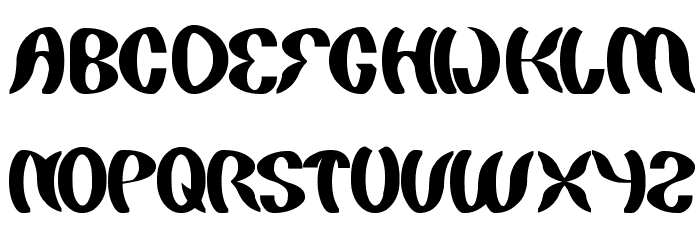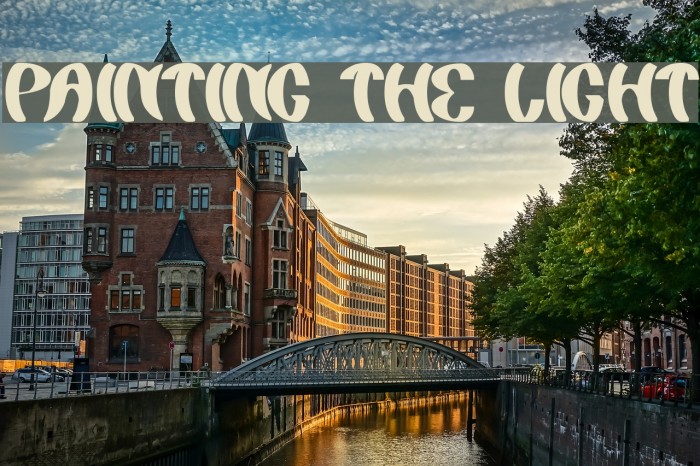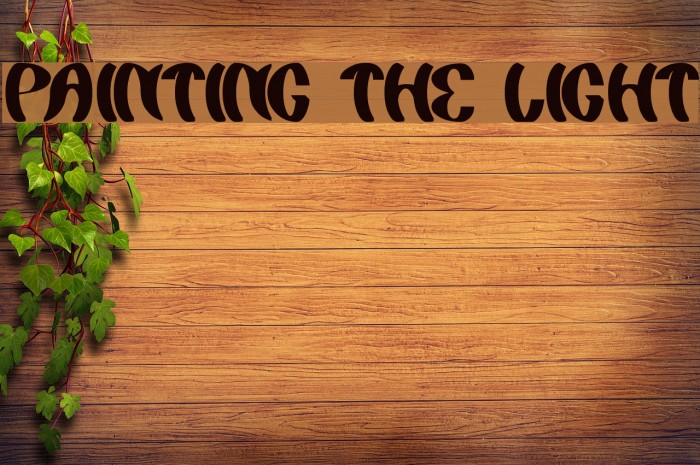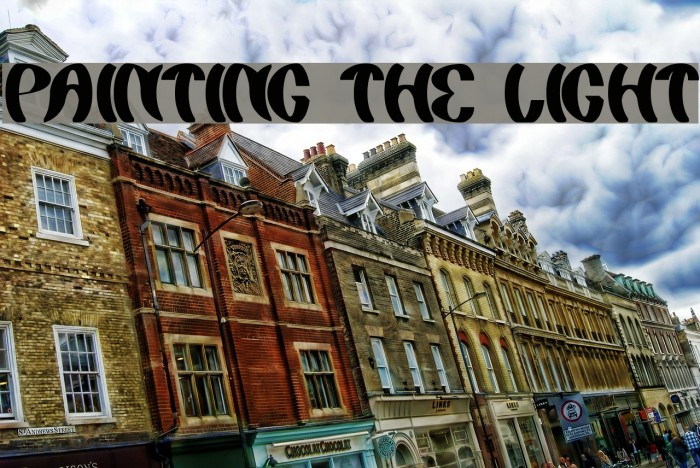
painting the light Font
This font features a bold and decorative style with a unique flair in its design. Each character is crafted with thick strokes and distinct curves, creating a sense of movement and energy. The uppercase letters have a strong presence, while the lowercase letters maintain the same boldness, ensuring consistency throughout the typeface. The font's playful and artistic elements make it stand out, with some characters incorporating unexpected twists and turns. This font is ideal for projects that require a creative and eye-catching display, offering a modern twist on traditional bold typefaces.
A bold, decorative font with unique curves and artistic flair.
- Proposed Projects: Ideal for posters, branding, headlines, and creative design projects.